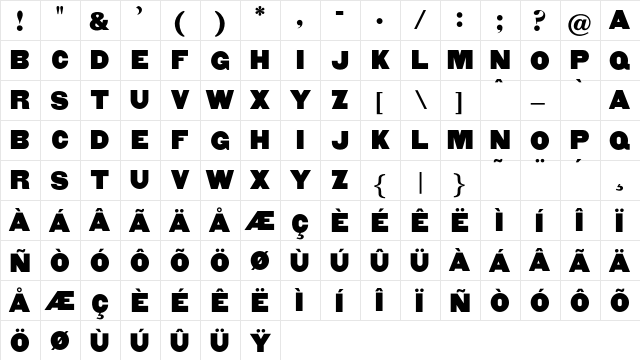
ElliotTwo Regular
Design Context for ElliotTwo Typeface
ElliotTwo offers clean, dependable letterforms without strong stylistic allegiance, making it a practical choice for designers who need flexibility.